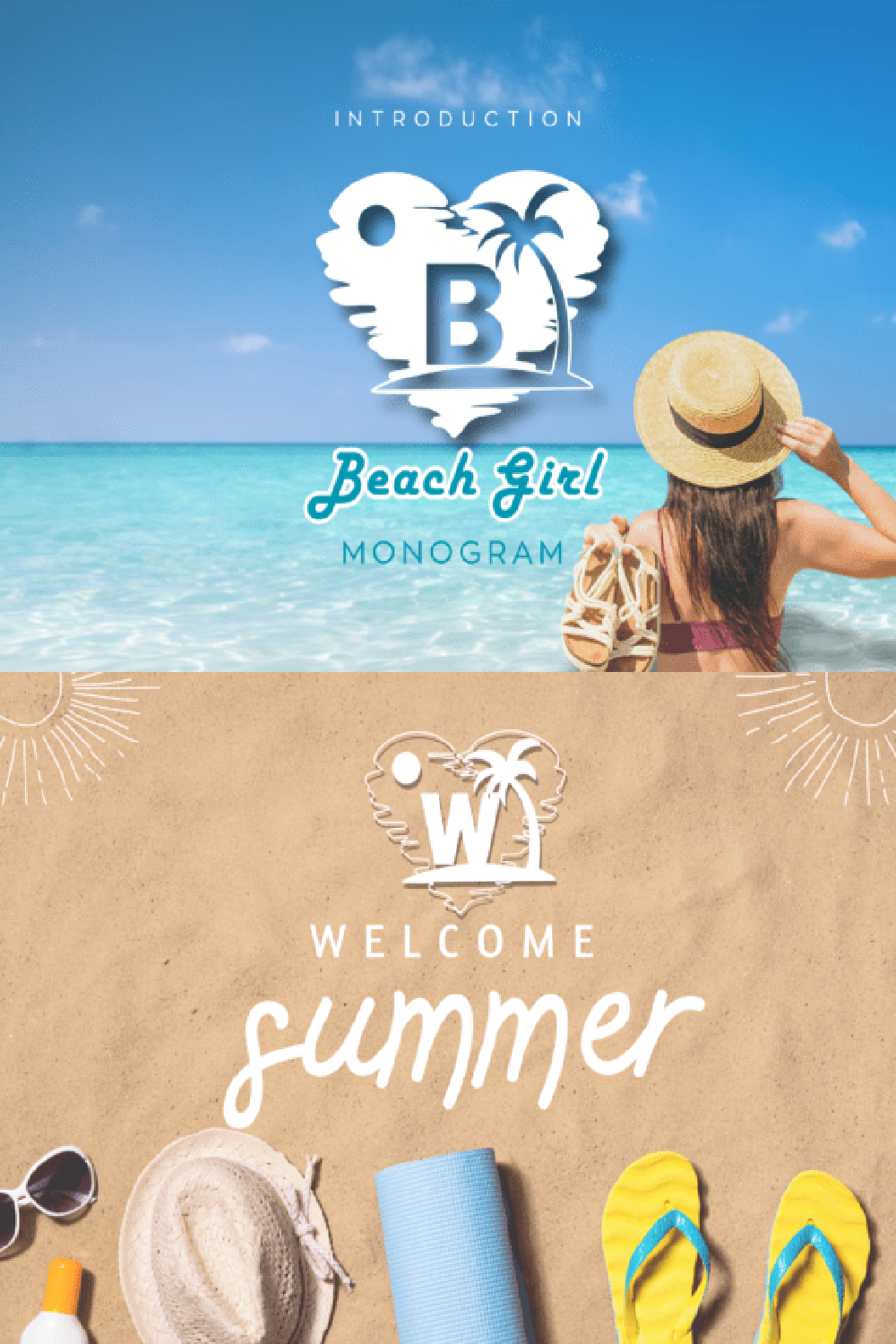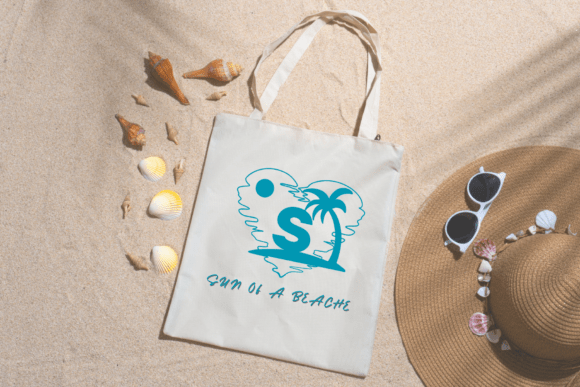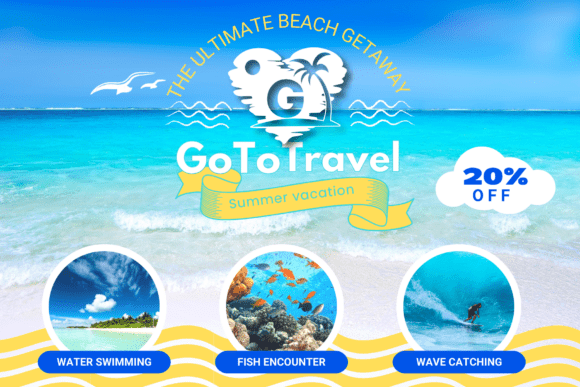
Beach Girl Monogram Font
About the Beach Girl Monogram Font
Discover the charm of Beach Girl Monogram Font. This font is a perfect blend of modern aesthetics and classic appeal. Beach Girl Monogram is a versatile and authentic decorative font. You can use these monograms on gift tags, cards, pillows, invitations, wall art, t-shirts, mugs and anything else you can think of.
Beach Girl Monogram Font Usage Examples